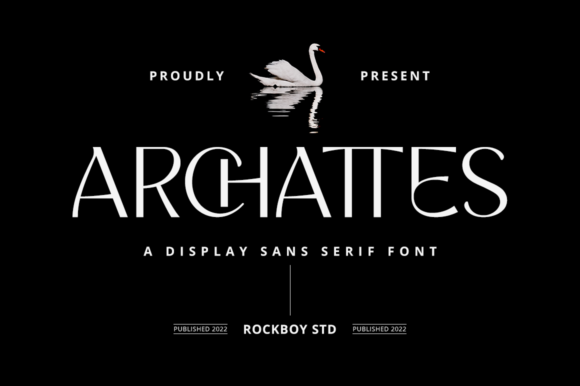
Unleash the captivating beauty of Archattes, a sans serif font that radiates elegance and sophistication. Its meticulously crafted curves and clean lines will transform your creative visions into extraordinary masterpieces.
Immerse yourself in the versatility of Archattes, the perfect font for crafting captivating visuals. Its seamless adaptability graces blogs, branding, and labels with an air of distinction. Unleash your creativity and elevate your designs to unparalleled heights.
Indulge in the enchanting allure of Archattes, a font that evokes emotions and leaves a lasting impression. Its graceful strokes dance effortlessly across the page, captivating your audience and inviting them into your world of imagination.
With Archattes, you possess the power to transcend the ordinary. Its delicate balance of modern and timeless elements creates an unforgettable visual experience that will leave your creations forever etched in the minds of your audience.
Join the creative revolution with Archattes, the font that empowers you to express your individuality. Its versatility knows no bounds, allowing you to weave tales of elegance, passion, and boundless creativity.
Elevate your designs to new heights with Archattes. Its beauty and versatility will inspire you to create captivating visuals that resonate with your audience on a profound level.